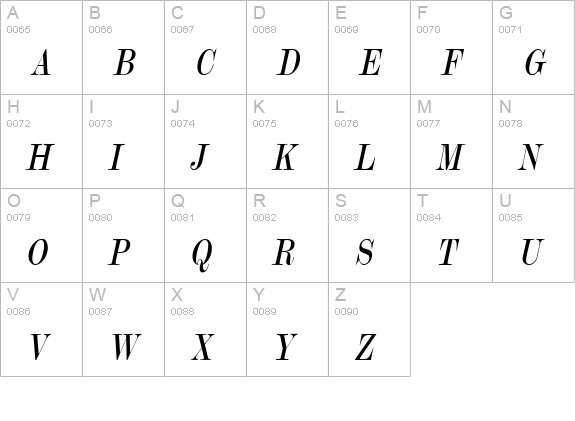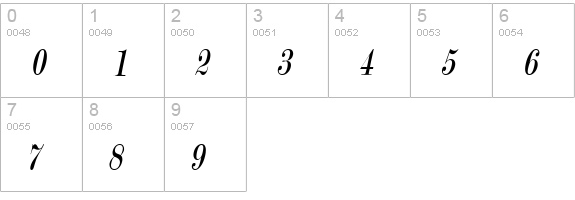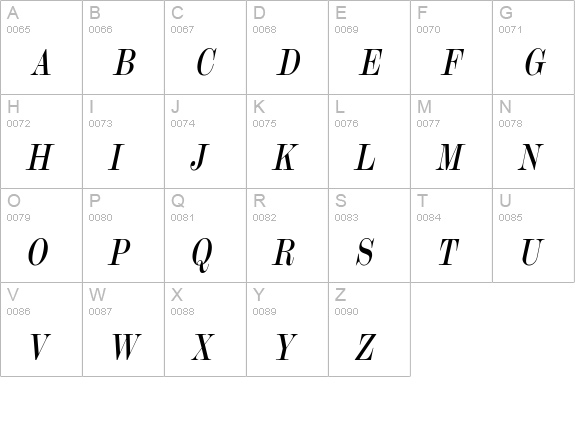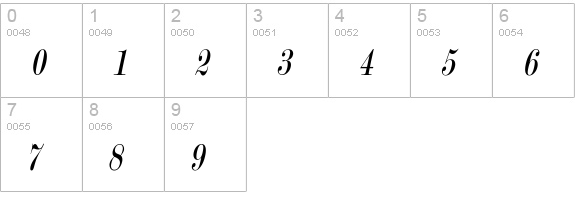
Update 20 Condensed Italic Font Details
Update 20 Condensed Italic is a distinctive, condensed-width, italic variant in the Update typeface family \xE2\x80\x94 well suited to design and typography projects.
Update 20 Condensed Italic font is a sleek and versatile typeface that effortlessly combines elegance and modernity. Its condensed form adds a touch of sophistication to any design project, while its italic style adds a dynamic and dynamic flair. This font is perfect for creating eye-catching headlines, stylish logos, and sophisticated branding materials. With its clean and crisp lines, Update 20 Condensed Italic font is a versatile choice for both print and digital media. Whether you're designing a magazine layout, a website, or a promotional poster, this font will bring a sense of professionalism and style to your work. What makes Update 20 Condensed Italic font even more appealing is the fact that it is available for free download at FontsMarket.com. This means that you can easily access and use this font for any personal or commercial project without any cost. Its freely available nature makes it a valuable resource for designers, students, and anyone else looking to add a touch of elegance to their creations. So, why wait? Enhance your designs with the sleek and versatile Update 20 Condensed Italic font today. Download it for free at FontsMarket.com and let your creativity soar.